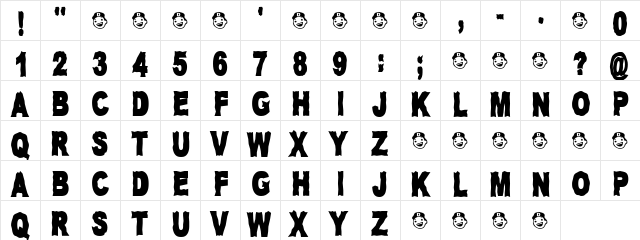
WaltzingMatilda Regular
Design Context for WaltzingMatilda Typeface
WaltzingMatilda is a composed and adaptable typeface that performs quietly and consistently across a wide range of design contexts.
Pro Tip: Pair WaltzingMatilda with a font of contrasting weight or personality to build a more expressive typographic hierarchy.